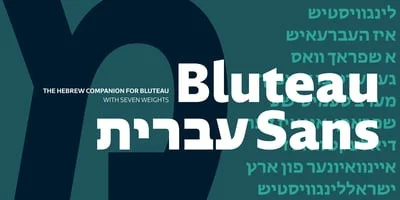
Bluteau Hebrew Sans Font
Bluteau Hebrew Sans Font is ideal for multilingual and cultural applications including Jewish community publications, Hebrew educational materials, synagogue signage, Israeli business branding, cultural heritage museums, interfaith dialogue publications, Hebrew language learning resources, and Judaica design projects. This sophisticated typeface brings modern clarity and cultural authenticity to projects requiring Hebrew script integration with contemporary design sensibilities.
What makes Bluteau Hebrew Sans Font exciting is its seamless integration of Hebrew letterforms with modern sans-serif design principles. The font features carefully balanced Hebrew characters that maintain traditional proportions while incorporating contemporary clarity and geometric precision. Its bilingual character design ensures perfect harmony between Hebrew and Latin scripts, creating cohesive typography for multicultural projects that honor Jewish heritage while embracing modern communication needs.
The Bluteau Hebrew Sans Font family encompasses multiple weights optimized for both Hebrew and Latin character sets, maintaining consistent visual rhythm across all scripts. The comprehensive family includes regular, medium, and bold variants with matching proportions and spacing. Extended character support includes Hebrew vowel points, cantillation marks, and specialized symbols essential for religious and educational Hebrew typography applications.
Jewish organizations and multicultural designers consistently select Bluteau Hebrew Sans Font for projects requiring authentic Hebrew typography and modern design integration. Whether developing Jewish educational materials, creating synagogue communications, or designing Hebrew-English publications, this font delivers exceptional cultural sensitivity and contemporary functionality. Its unique combination of Hebrew authenticity and modern design makes it an essential resource for professionals working on Jewish cultural projects, Hebrew education, and interfaith initiatives that require respectful, beautiful typography bridging traditional heritage with contemporary communication.